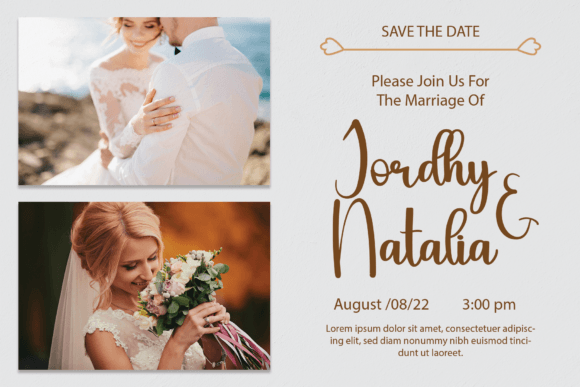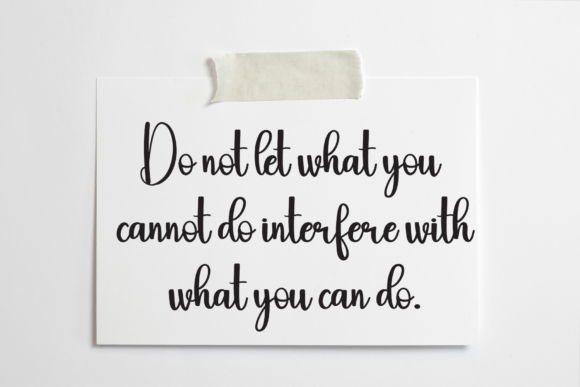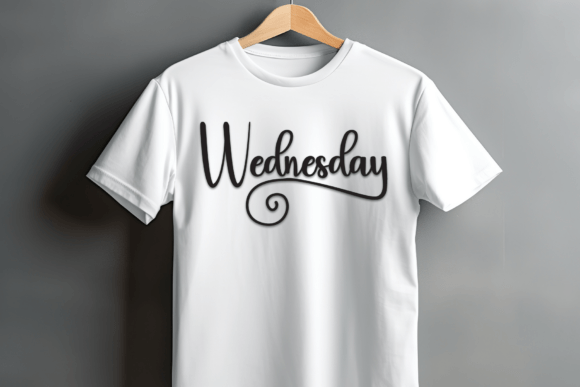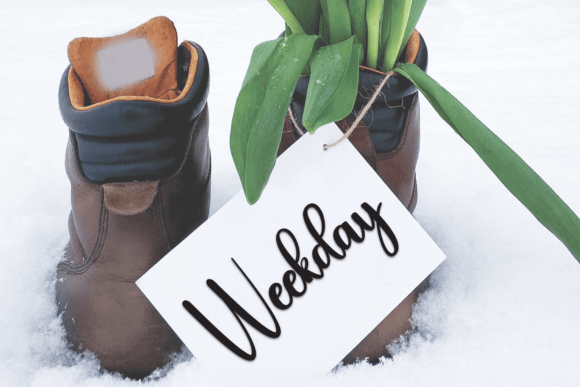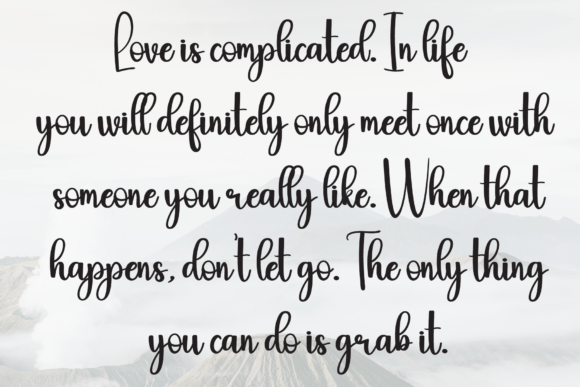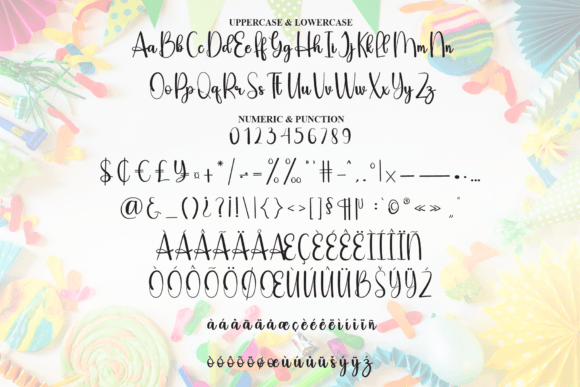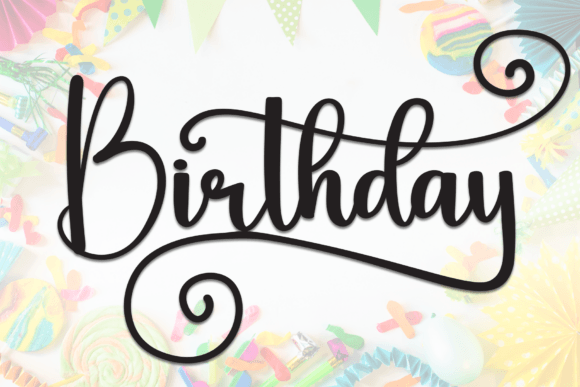
Introducing Birthday Font: The Sweetest Way to Add Whimsy to Your Designs
Are you tired of using the same old fonts in your designs? Do you want to add a touch of personality and whimsy to your creative projects? Look no further than Birthday Font, a charming and personable, hand-scripted display font that’s perfect for capturing the essence of sweetness and love.
A Font that’s as Adorable as it is Versatile
Birthday Font is undeniably adorable and playful, making it the perfect addition to any artistic design seeking a dash of fun and joy. Whether you’re creating heartfelt wedding invitations, expressive greeting cards, or any other type of design, this font is sure to breathe life into your project. With its unique and charming character, Birthday Font is not just a font, but a powerful tool to infuse your creative projects with a touch of delightful whimsy.
As a designer or crafter, you’re always on the lookout for new and exciting ways to make your designs stand out. Birthday Font is the perfect solution. With its hand-scripted display style, this font is perfect for adding a personal touch to any design. Whether you’re creating digital or print designs, Birthday Font is sure to add a touch of personality and charm.
What Makes Birthday Font So Special?
So, what makes Birthday Font so special? Here are just a few of the features that make this font stand out:
- Hand-scripted display style: Birthday Font is a hand-scripted display font that’s been carefully crafted to capture the essence of sweetness and love.
- Unique and charming character: With its unique and charming character, Birthday Font is sure to add a touch of personality and whimsy to any design.
- Versatile and adaptable: Whether you’re creating digital or print designs, Birthday Font is versatile and adaptable, making it perfect for a wide range of creative projects.
- Easy to use: Birthday Font is easy to use, even for those with limited design experience.
How to Use Birthday Font in Your Designs
Using Birthday Font in your designs is easy. Here are a few tips to get you started:
- Pair it with other fonts: Birthday Font pairs perfectly with other fonts, making it easy to create unique and interesting typography combinations.
- Use it for headings and titles: Birthday Font is perfect for headings and titles, adding a touch of personality and whimsy to any design.
- Add it to your digital designs: Birthday Font is perfect for digital designs, including social media graphics, blog posts, and more.
- Use it for print designs: Birthday Font is also perfect for print designs, including business cards, brochures, and more.
In conclusion, Birthday Font is a charming and personable, hand-scripted display font that’s perfect for capturing the essence of sweetness and love. With its unique and charming character, versatile and adaptable style, and easy-to-use design, Birthday Font is the perfect addition to any creative project. Whether you’re a designer or crafter, Birthday Font is sure to add a touch of delightful whimsy to your designs.
Get Ready to Fall in Love with Birthday Font
So, what are you waiting for? Get ready to fall in love with Birthday Font and take your designs to the next level. With its adorable and playful style, Birthday Font is sure to capture the hearts of designers and crafters alike.